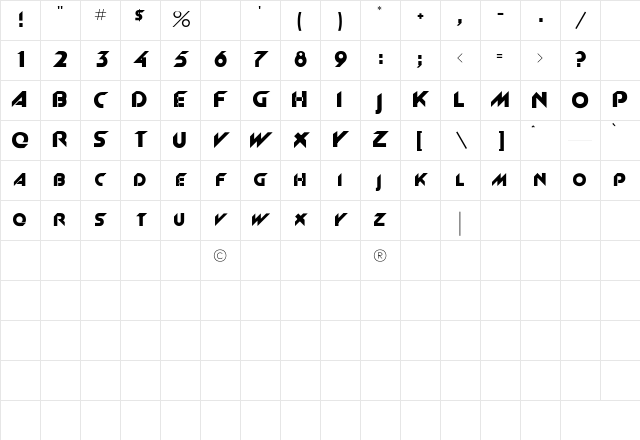
NewGarrett Regular Free Font
NewGarrett Regular
NewGarrett Family
Design Context for NewGarrett
NewGarrett is a composed and adaptable typeface that performs quietly and consistently across a wide range of design contexts.